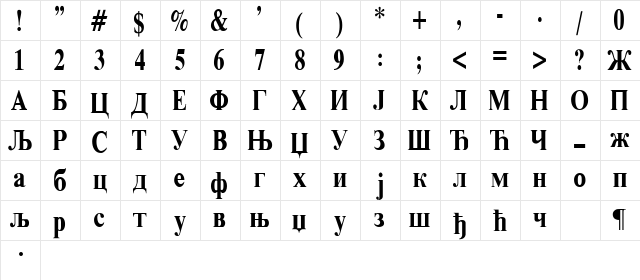
Cirilica 80 Regular
Design Context for Cirilica 80 Typeface
Cirilica 80 is a composed and adaptable typeface that performs quietly and consistently across a wide range of design contexts.